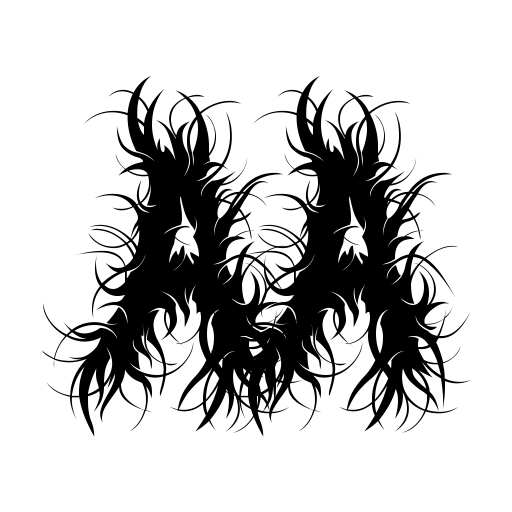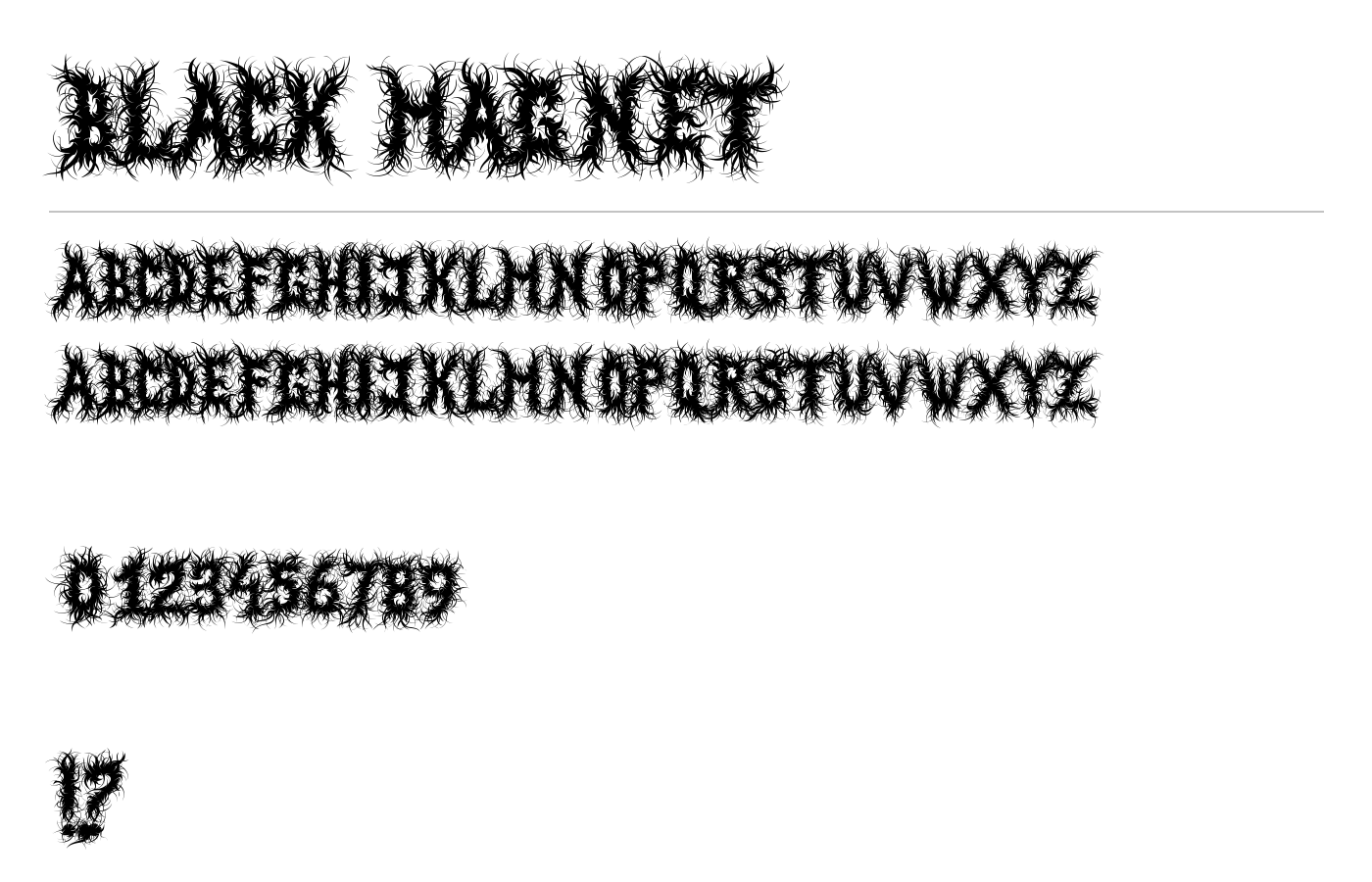
Black Magnet is a bold and highly decorative display font featuring intricate, spiky textures that create a dynamic, almost chaotic visual impact. Its condensed uppercase letters with elaborate, thorn-like strokes make it ideal for edgy, artistic branding and striking headlines where a unique, intense personality is desired. This font works best in creative projects, posters, and logos that need strong attention and a rebellious, avant-garde vibe.
Black Magnet Font
About Black Magnet Font
| Font family | Black Magnet Font |
| Designer | Ondi Indriana |